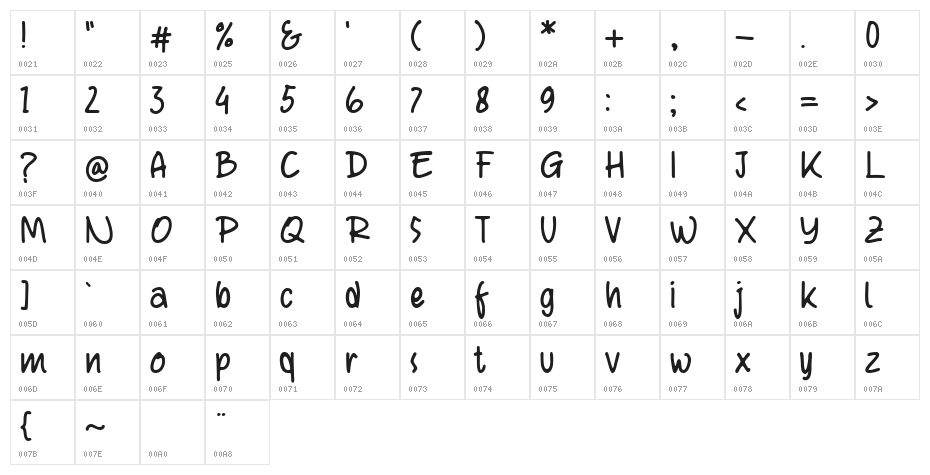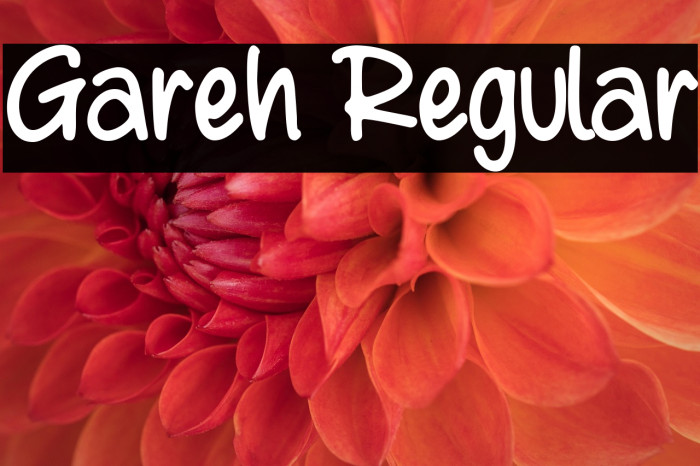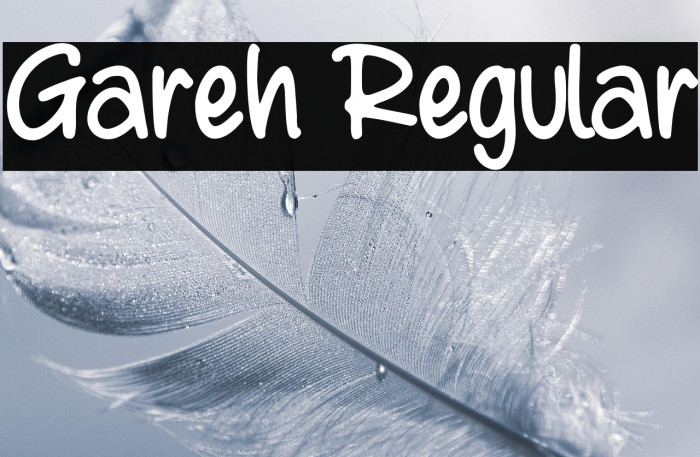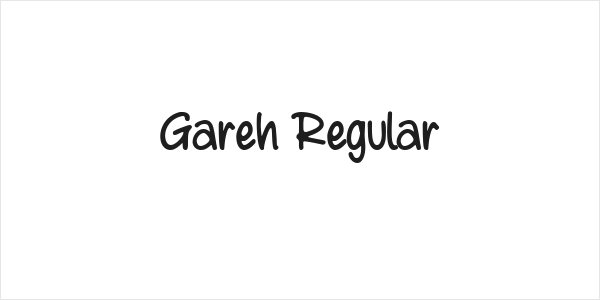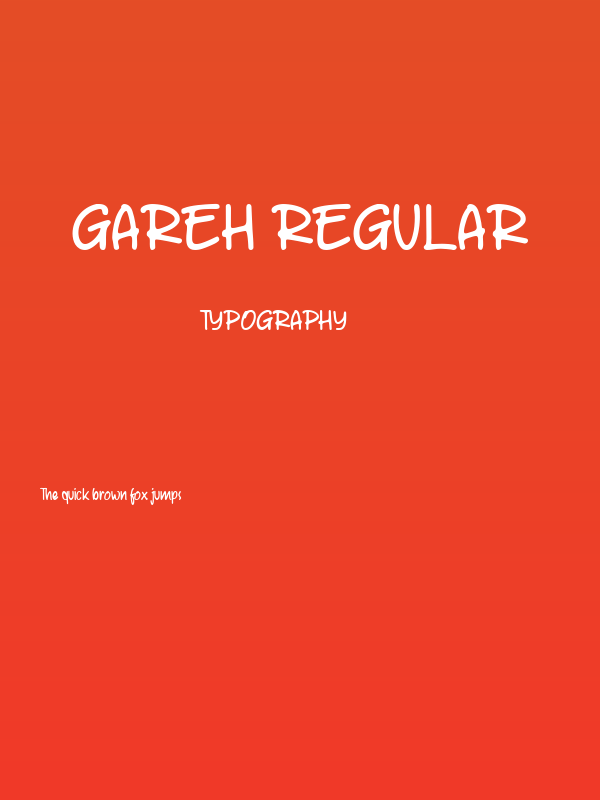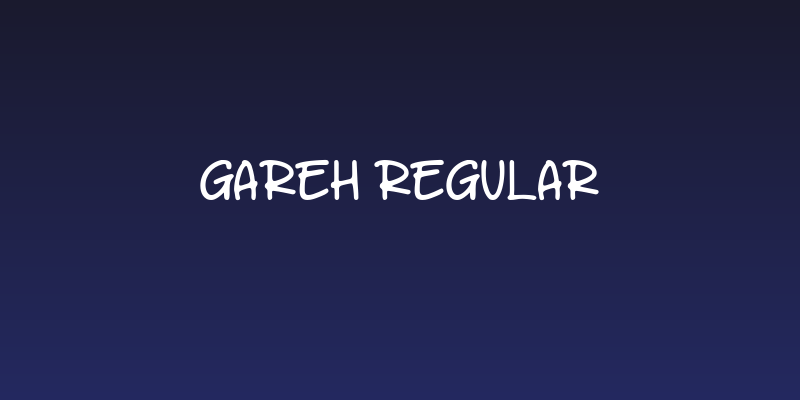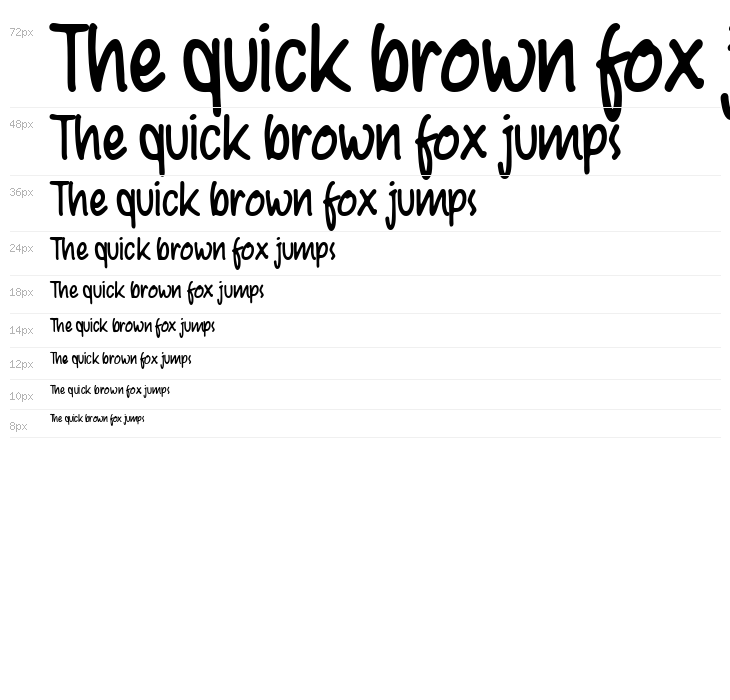
Gareh Regular Font
Gareh Regular Description
A playful, handwritten font with a casual and friendly appearance, featuring rounded edges and a slightly irregular baseline.
| Use Case | Logos, Headlines, Informal text. |
| Proposed Projects | Greeting cards, informal invitations, children's books. |